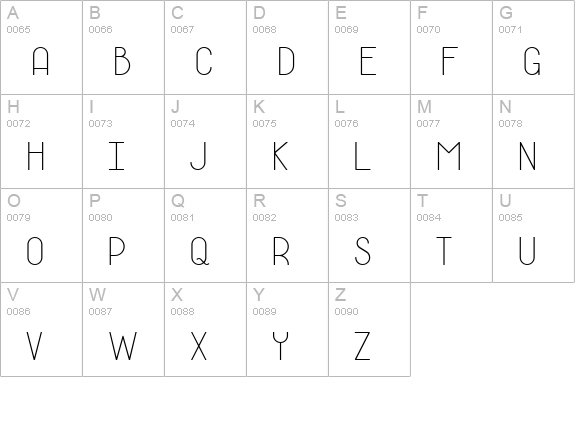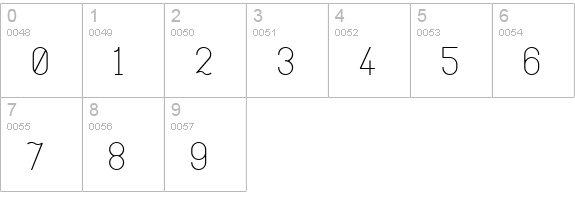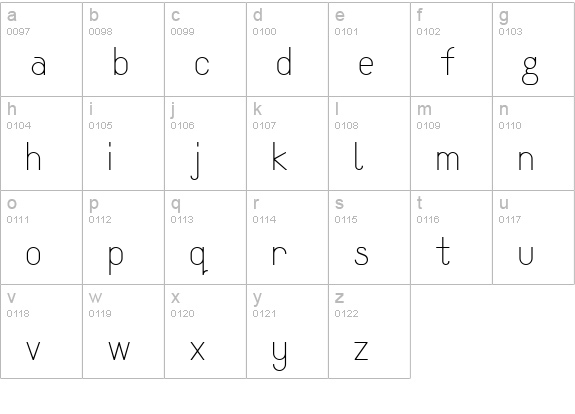
Bino Light is a refined, elegant variant in the Bino typeface family \xE2\x80\x94 well suited to elegant body text, refined sub-headings, and luxury branding.
Bino Light font is a modern and sleek typeface that exudes elegance and sophistication. With its clean lines and gentle curves, this font is perfect for a wide range of design projects, from branding to editorial design. The light weight of the font adds a sense of airiness and delicacy to any text, making it versatile and easy to read. And the best part? Bino Light font is completely free to download at FontsMarket.com. This means you can elevate your designs with this beautiful typeface without having to worry about any additional costs. So go ahead and give your projects a touch of class with Bino Light font - the perfect choice for all your design needs.